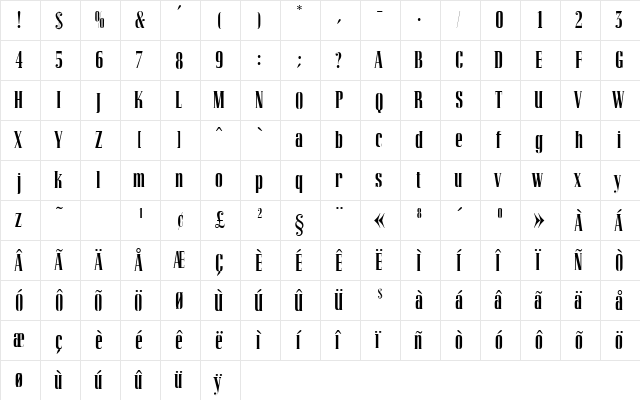
Cortege Regular
Design Context for Cortege Typeface
Cortege is a composed and adaptable typeface that performs quietly and consistently across a wide range of design contexts.